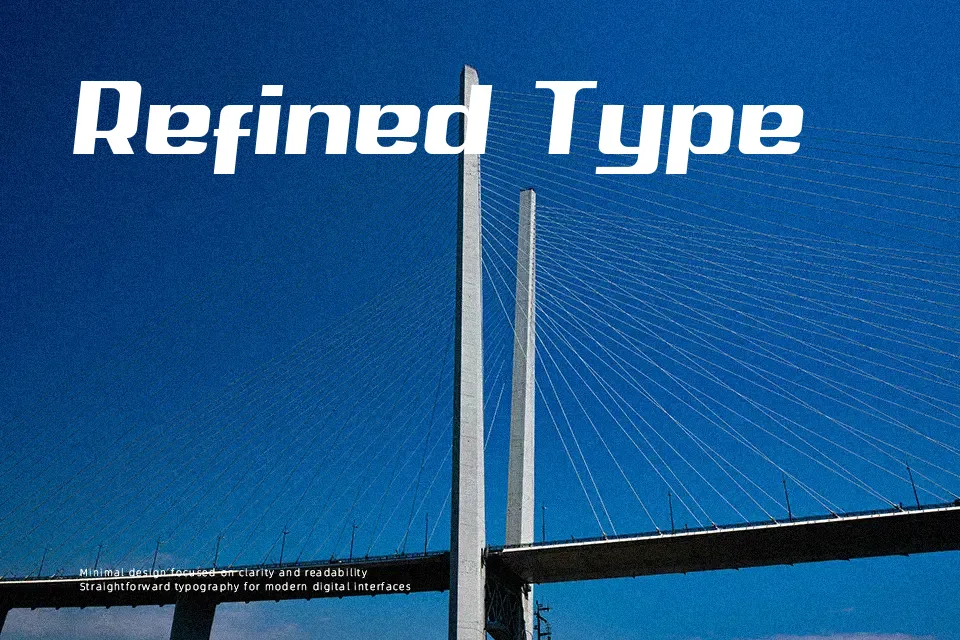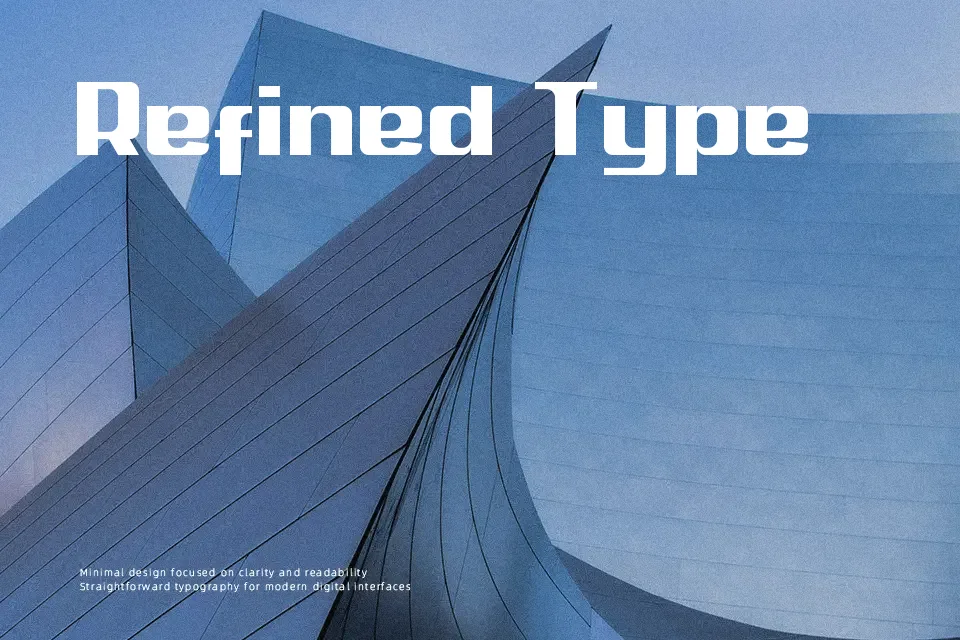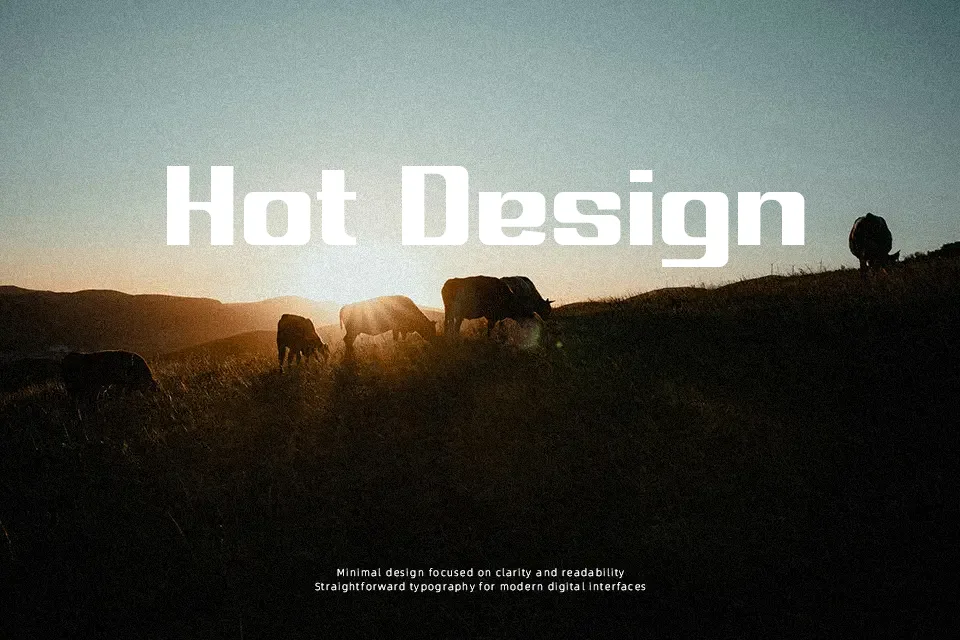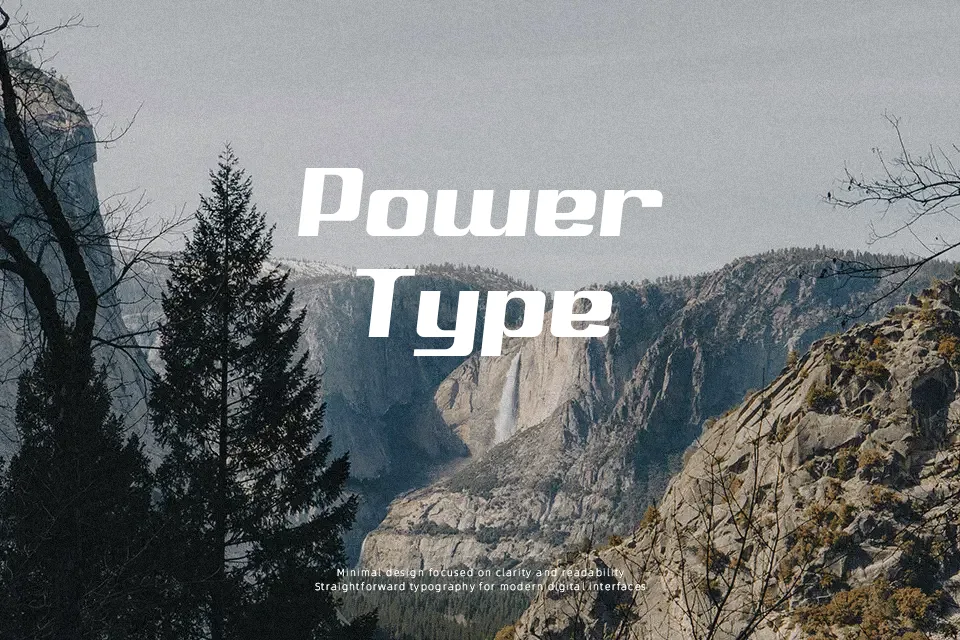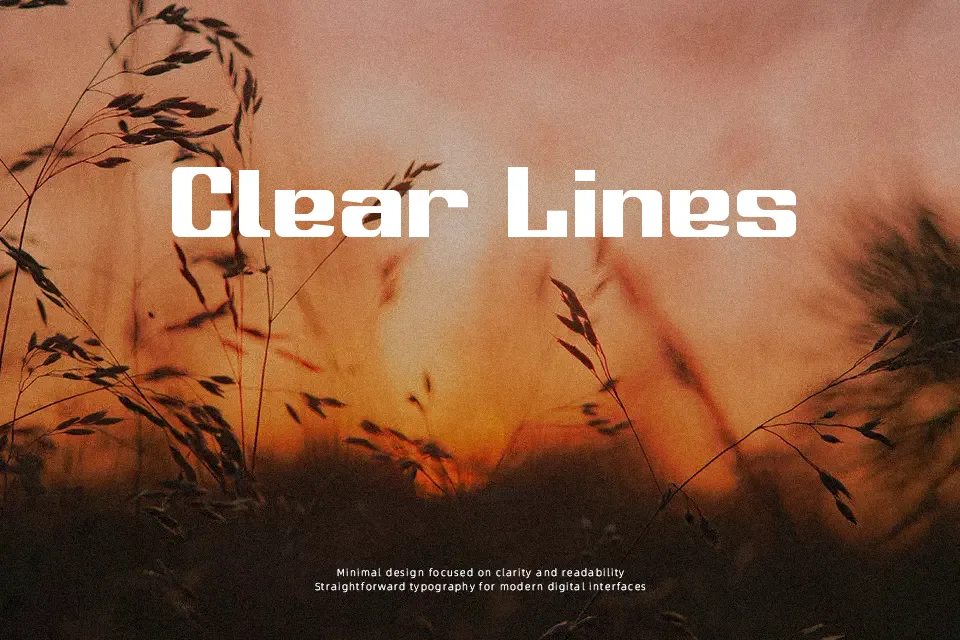
Sport Gazenox Font
Sport Gazenox Font features a heavy, wide geometric sans serif construction built specifically for high-impact display environments. Its extended horizontal proportions and uniform bold strokes establish an assertive rhythm that commands visual attention across athletic posters, team merchandise, and fitness branding. The generous internal counter spaces and clean terminals preserve structural clarity across massive banners and merchandise graphics. However, the sheer stroke weight and broad footprint make the typeface unsuitable for continuous reading passages or compact interface labels where dense spacing reduces legibility. For bold display headings, the design offers consistent visual impact and dependable presence.
Best For: athletic apparel graphics, esports tournament banners, automotive headline posters, energy drink packaging
Not Ideal For: continuous book paragraphs, mobile application ui text, dense editorial layouts, small technical diagrams
Perfect for gaming, headline, and logo, with a bold and display style.